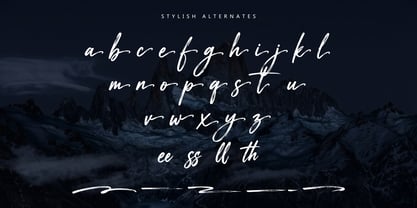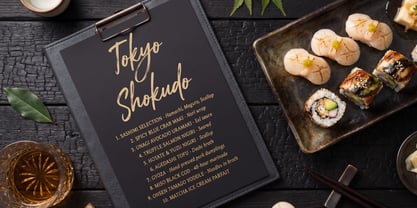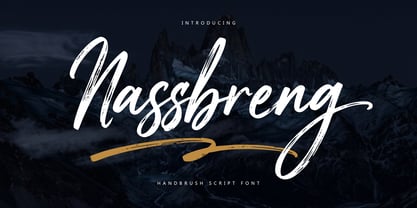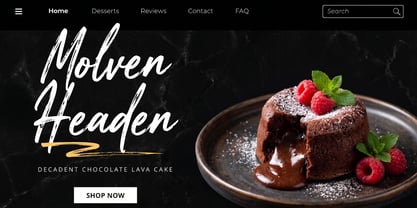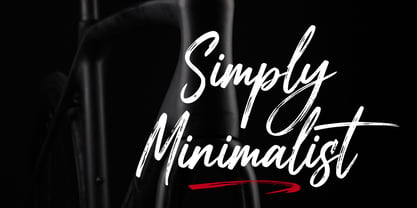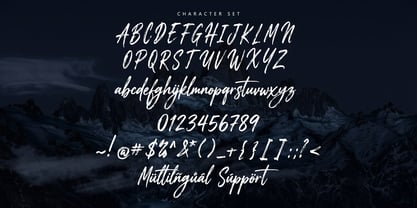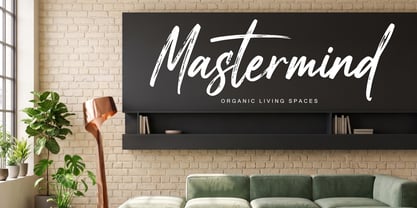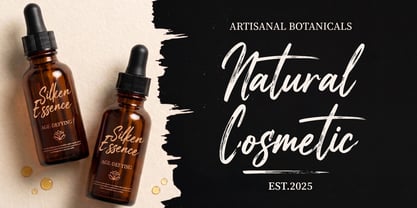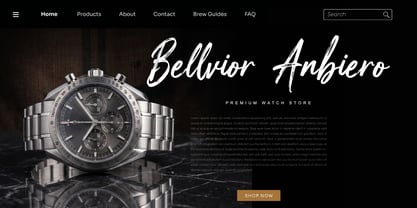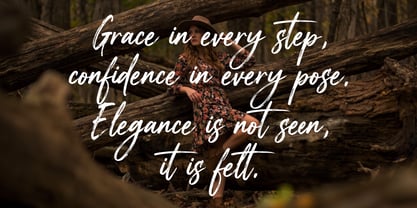
Nassbreng
The Nassbreng Font Family was designed by Saiful Anwar and published by Sealoung. Nassbreng contains 1 styles. More about this family
Nassbreng – Handbrush Script Font
Nassbreng is a bold and expressive handbrush script font crafted with natural brush strokes and authentic ink texture. Designed to capture the raw energy of hand-lettering, Nassbreng delivers a perfect balance between elegance and rugged charm, making it highly versatile for a wide range of creative projects.
With its dynamic strokes, stylish curves, and slightly dry brush texture, this font brings a handcrafted feel that stands out beautifully in both modern and artistic designs. The natural flow and strong character make Nassbreng ideal for branding that wants to feel personal yet powerful.
Features:
• Uppercase & lowercase letters
• Numbers & punctuation
• Multilingual support
• Ligatures & Alternates
• Natural brush texture
• Smooth and dynamic flow
Nassbreng is your go-to choice when you need a font that feels bold, stylish, and authentically handcrafted.